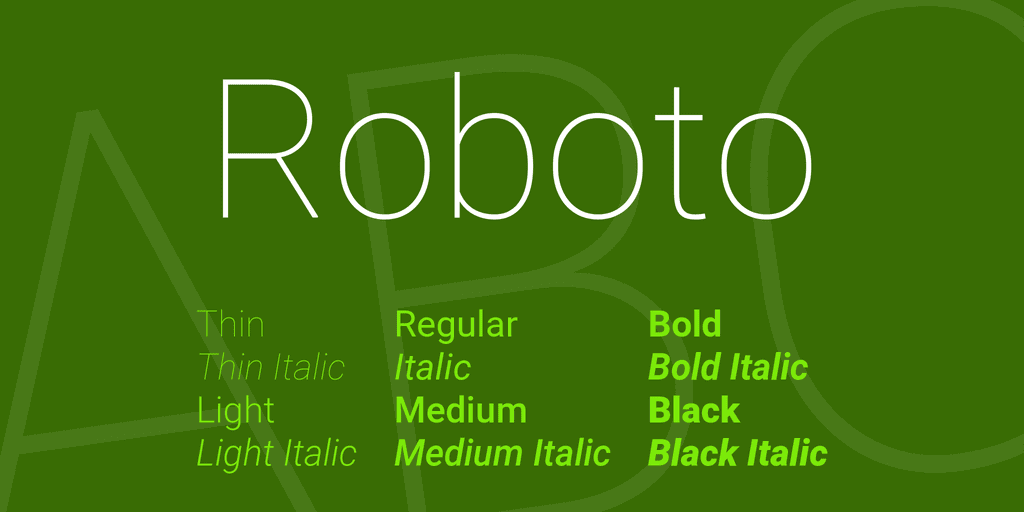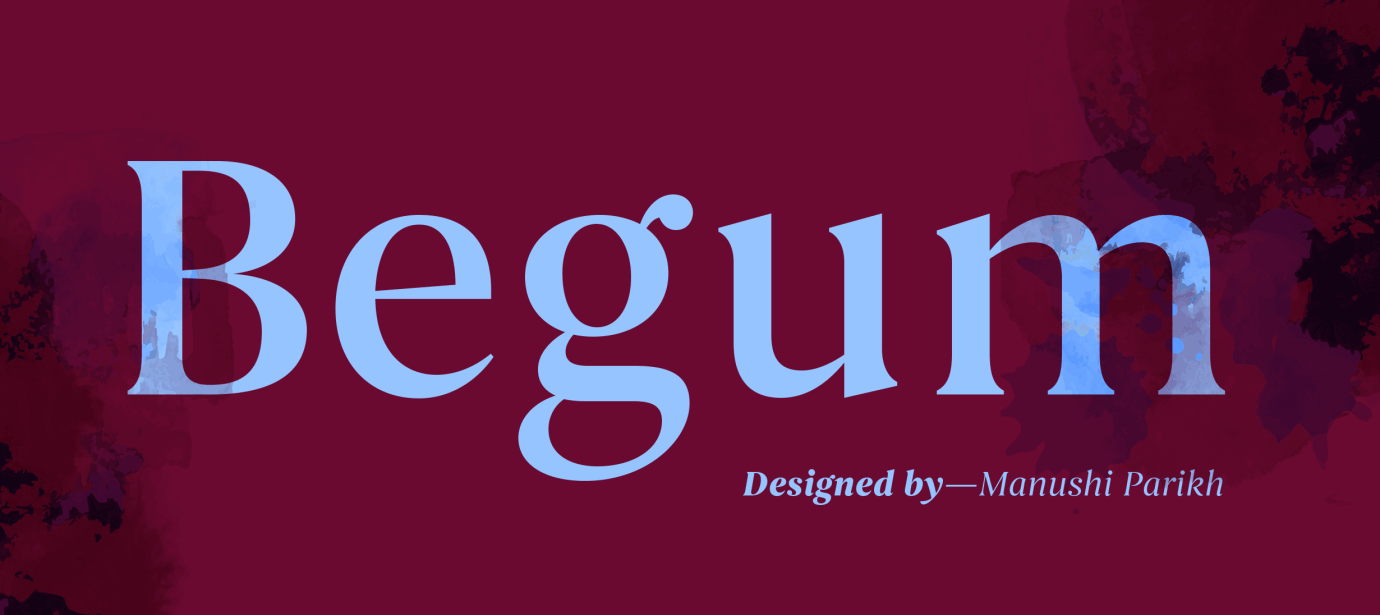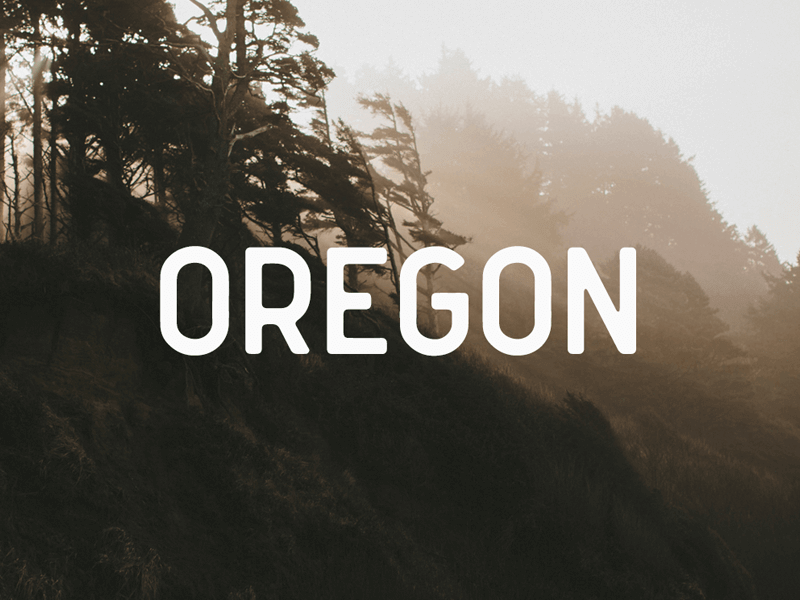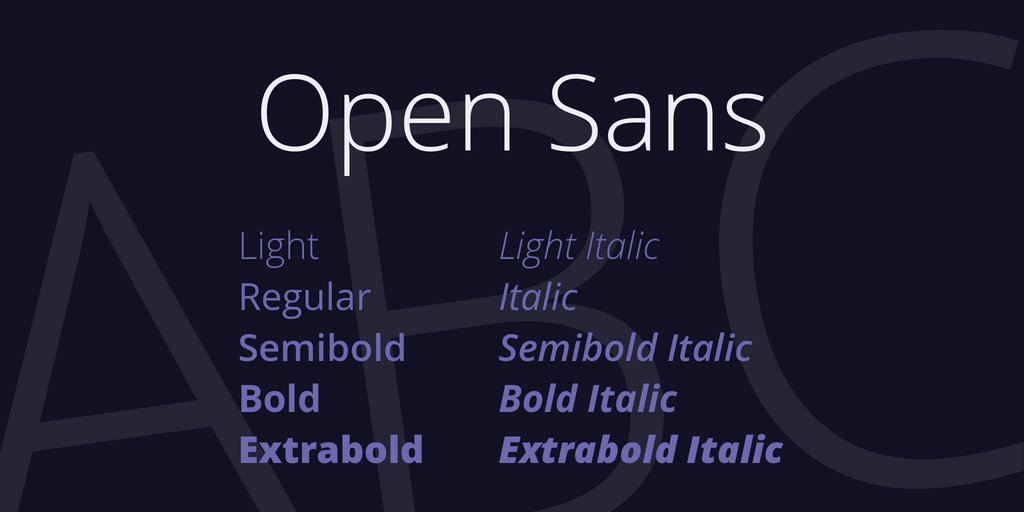
Best Website Fonts
A font can make or break a website design. Not just website design, fonts are essential pieces of design that, when done poorly can throw off the entire thing. It seems paradoxical, but the best website fonts will often fly under the radar. They are an organic part of the design, so much so that they go unnoticed.
Web design is a complex process. There are many visual elements designers should take into account, from color schemes, icons, and branding, to fonts. None of these are choices that should be taken lightly.
However, with fonts, there are a few pointers that will help you discern what are the best fonts for a website.
- Think about the purpose of the website. Good website fonts should always follow the general style of the design. If you’re going for traditional, serif fonts should be the first choice, for example.
- Colors are important. Too much contrast or clashing colors can be jarring, even if the font’s shape is right. Combining fonts can be great for creating a dynamic design. But be careful not to go overboard. Two to three fonts should be the maximum amount. Consider combining heavier and lighter fonts. Heavier, more intricate fonts should be used sparingly, only for headlines and such. The body text should be as simple and easy to read as possible.
What is the best font size for a website?
Font size is also crucial in web design. It’s tricky to get right because the website must be usable on various devices that all have different sizes. When choosing a font style for website design you should always take into account the device the font will show up on.
Desktop site font sizes
It’s widely advised that body text font size for a desktop site should be 16-18px. This will help the site be neater and easier to navigate.
Headings for desktop sites should be around 1.96 times bigger than the body text. So if your body text is about 16px, the headings need to be about 31.36, or even 32px.
Subheadings should be bigger than the body text, but slightly smaller than the headings. If you use 32px for the headings, subheadings should be around 27-29px.
Input fields should match the body text as closely as possible.
Mobile site font sizes
Mobile sites are typically more difficult to design because of the limited space. That’s why it’s so important to think about what’s the best font size for a website used on a mobile device.
As with desktop sites, you should aim to have your body text and input fields at about 16px. You can go as low as 14px if you use all caps, or the font you choose is bigger by default.
Headings are where mobile and desktop sites differ. Headings on mobile sites are usually smaller, around 1.3 times larger than the body text. This means if your body text is 16ox, the headings would be around 20 or 21px.
Subheadings look very similar to headings on mobile sites because the difference in sizes tends to be smaller. If the heading is 20px, it’s very easy to confuse it with a subheading that’s 18px.
To avoid this, it’s smarter to have subheadings be italicized or otherwise distinct from the headings.
What are the best fonts for a website?
Below you’ll find a list of 17 cool fonts for websites, from no-nonsense serifs to wacky script fonts. Let’s take a look!
Garamond (Free)
We’ll start with a classic. Garamond is an elegant serif font, with rounded bowls and graceful lines. It’s versatile and can be used both for headings and body text.
Garamond could be a great choice when designing a website for law firms or banks. It projects stability and powerful elegance. Even better for my fellow Brooklyn 99 fans, it has Victor Santiago’s stamp of approval.
Montserrat (Free)
Montserrat is another popular and big family of fonts. It’s a sans-serif typeface font, and it’s very neat and easy to read. This makes it a great choice for body texts.
A lot of websites use it for their body texts, as well as subheadings. Montserrat works wonderfully with different fonts, and it could be a great companion to more flamboyant cursive or typeface fonts. Many designers believe it’s the best font for web design because it’s easy to navigate and scale.
Playfair Display (Free)
Playfair Display is another great serif font that can work for both headings and body text. Its sharp serif points give it a little bit of an edge, but it’s not too aggressive.
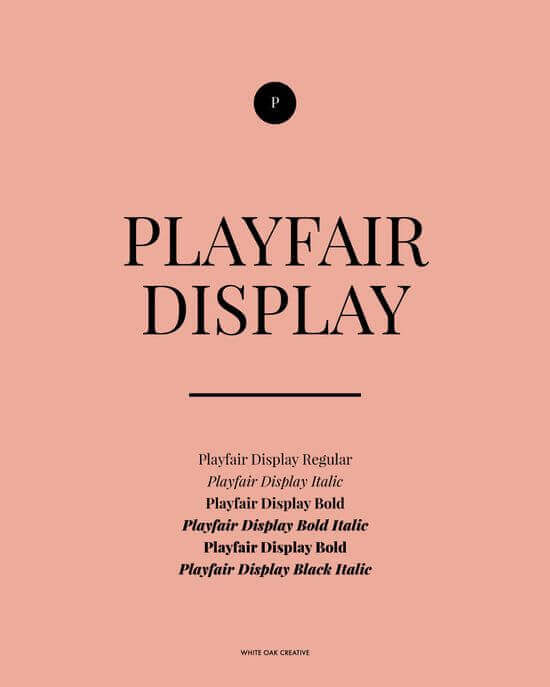
The font features several different weights, making it extremely versatile. It could work well paired with a heavy sans-serif or even another serif font. Playfair Display is a great choice if you’re looking for a font that you can use for various elements of your website design.
Tisa ($65.99 per font)
Tisa is a nice font family, designed by Slovenian designer Mitja Miklavcic in the late 2000s. It is a well-balanced font, which means the stems and bowls of the letters are similar in size and weight.